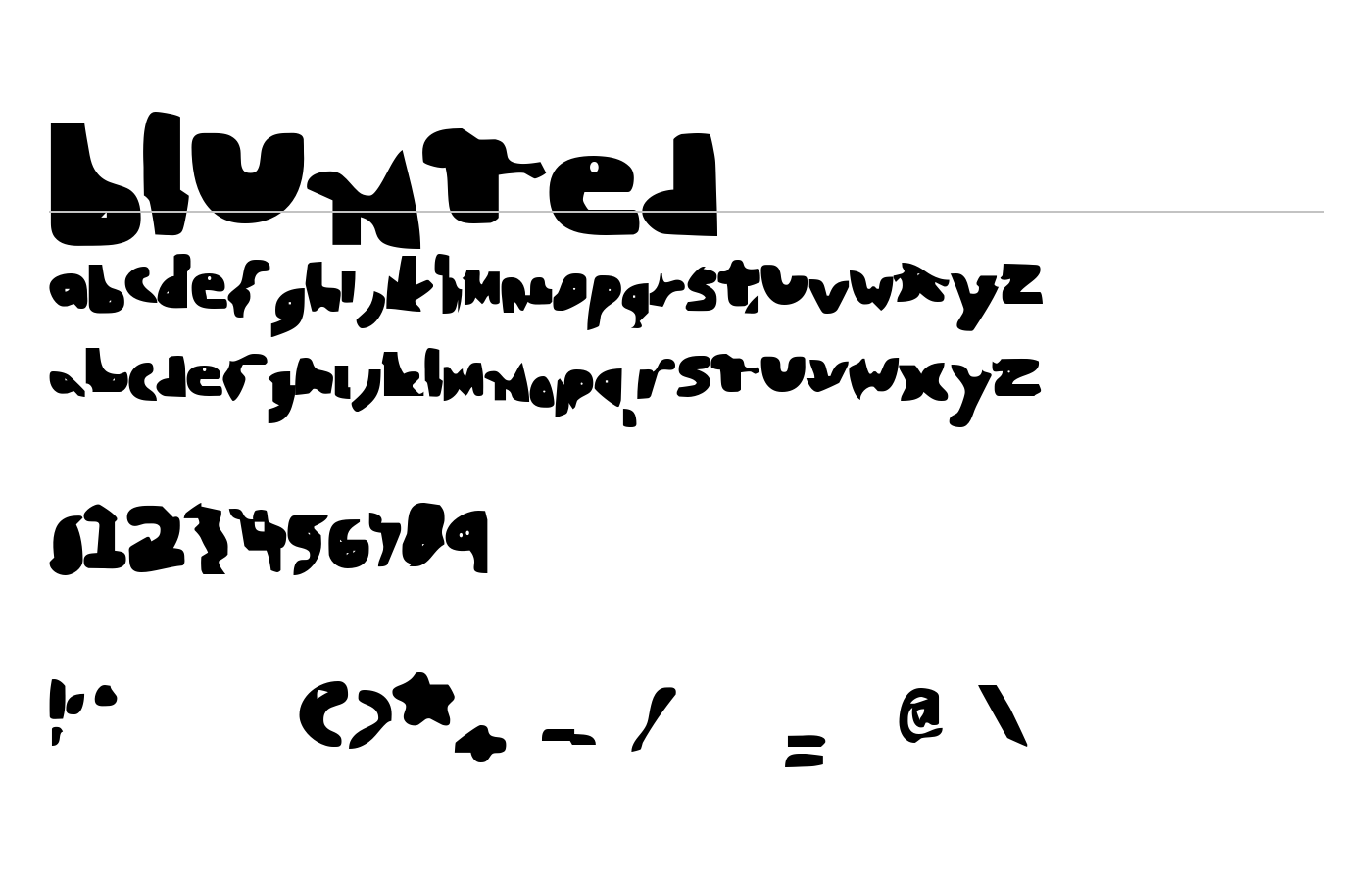
Blunted Font is a bold, playful display typeface with heavy, irregular shapes and soft, rounded edges that give it a hand-crafted, almost whimsical feel. Its unique, chunky letterforms and uneven strokes make it ideal for fun, creative designs like posters, kids’ branding, or informal headings where a quirky and approachable personality is desired. This font stands out best in large sizes and casual contexts, adding a distinctive, artistic touch to any project.
Blunted Font
About Blunted Font